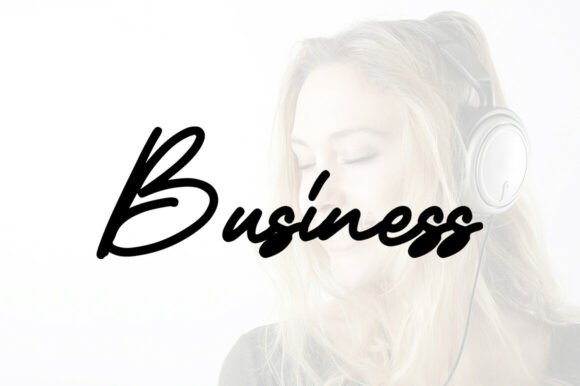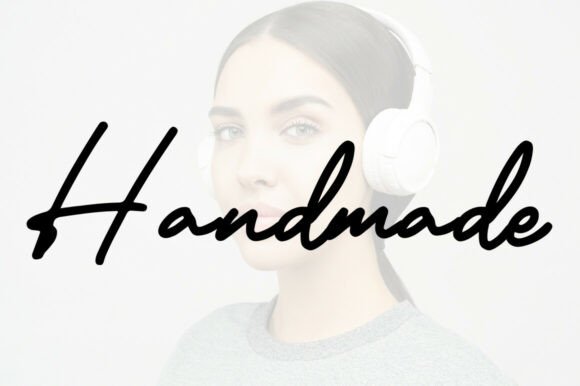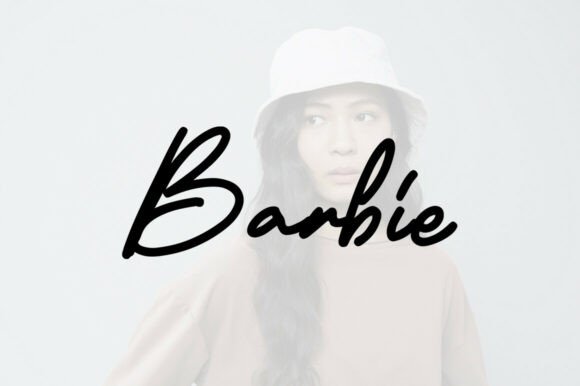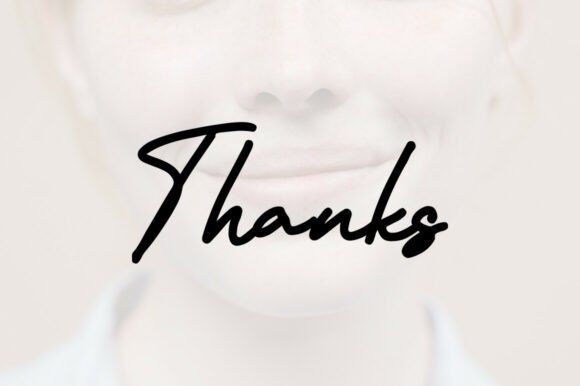
The Elegance of Greeting Font: A Perfect Choice for Your Designs
In the world of typography, a good font can make all the difference in the success of a design project. For designers and crafters looking for a delicate, elegant, and flowing handwritten font, Greeting Font is an excellent choice. With its beautiful and well-balanced characters, Greeting Font matches a wide pool of designs, making it a versatile and reliable option.
What is Greeting Font?
Greeting Font is a modern handwritten font designed to add a touch of elegance and sophistication to any design project. Its delicate and flowing lines create a beautiful visual effect, making it perfect for a variety of applications, from wedding invitations and greeting cards to branding and packaging designs.
Key Features of Greeting Font
- Delicate and Elegant: Greeting Font features delicate and elegant lines that give it a sophisticated and refined look.
- Well-Balanced Characters: The font has well-balanced characters that ensure perfect harmony and visual appeal.
- Flowing Handwritten Style: The font’s flowing handwritten style creates a beautiful and organic look that is perfect for designs that require a personal touch.
- Versatile: Greeting Font matches a wide pool of designs, making it a versatile option for various design projects.
Benefits of Using Greeting Font
Using Greeting Font in your design projects offers several benefits. Firstly, it adds a touch of elegance and sophistication, making your designs stand out. Secondly, its versatility ensures that it can be used in a variety of applications, from formal to informal designs. Finally, the font’s flowing handwritten style creates a beautiful and organic look that connects with the audience on a personal level.
Design Applications of Greeting Font
Greeting Font is suitable for a wide range of design applications, including:
- Wedding Invitations: The font’s elegant and sophisticated look makes it perfect for wedding invitations and other formal events.
- Greeting Cards: Greeting Font is ideal for creating beautiful and heartfelt greeting cards for various occasions.
- Branding and Packaging: The font’s unique and elegant look makes it suitable for branding and packaging designs that require a touch of sophistication.
- Stationery: Greeting Font can be used to create beautiful and elegant stationery, including letterheads, notebooks, and journals.
Tips for Using Greeting Font Effectively
To get the most out of Greeting Font, here are some tips to keep in mind:
- Pair it with Other Fonts: Greeting Font can be paired with other fonts to create a unique and visually appealing combination.
- Use it for Headings and Titles: The font’s elegant and sophisticated look makes it perfect for headings and titles.
- Experiment with Colors: Greeting Font looks great in various colors, so don’t be afraid to experiment and find the perfect color scheme for your design.
In conclusion, Greeting Font is a beautiful and elegant handwritten font that is perfect for designers and crafters looking to add a touch of sophistication to their design projects. With its delicate and flowing lines, well-balanced characters, and versatile design, Greeting Font matches a wide pool of designs, making it a reliable and trustworthy option. Whether you’re designing wedding invitations, greeting cards, or branding and packaging materials, Greeting Font is an excellent choice.